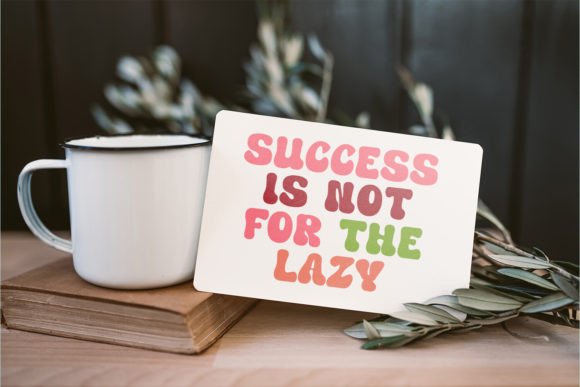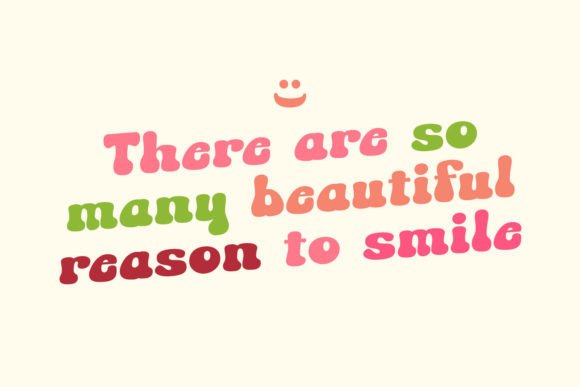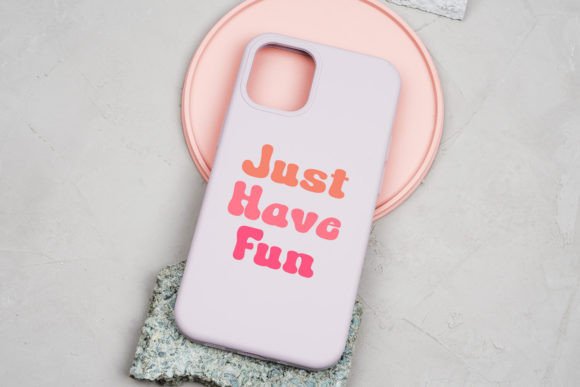
Introduction to Pinkish Fruits Font
Pinkish Fruits is a delightful display font that radiates a playful style with its very thick weight and low contrast.
The font is characterized by rounded shapes, giving it a soft and approachable appearance Its bold and rounded characters ensure your message is both impactful and friendly, making it an excellent choice for projects that aim to captivate and engage with a touch of whimsy.
Why Choose Pinkish Fruits Font?